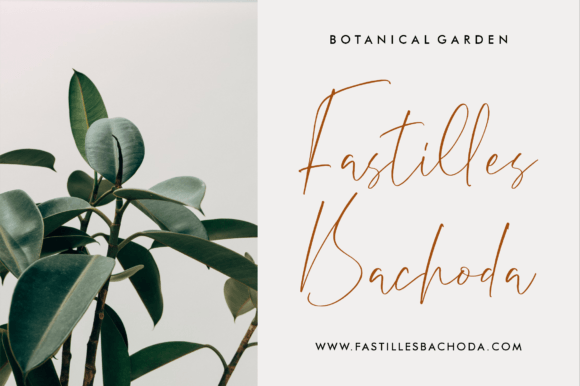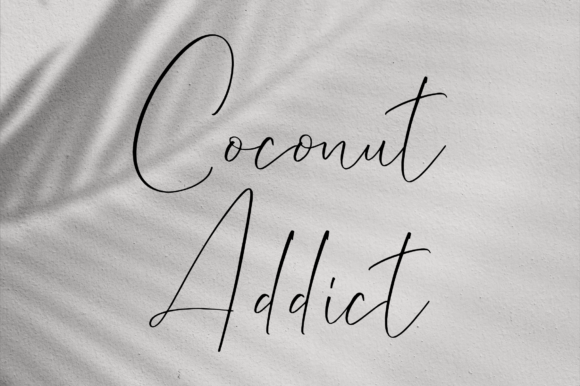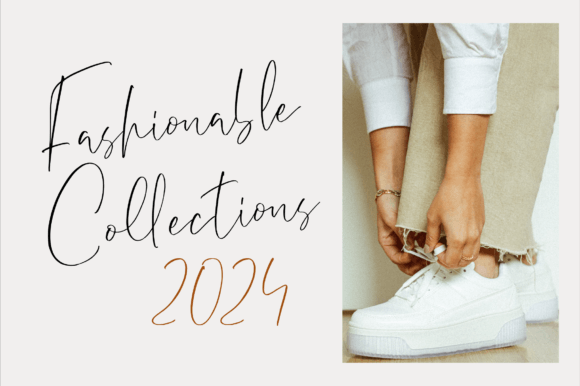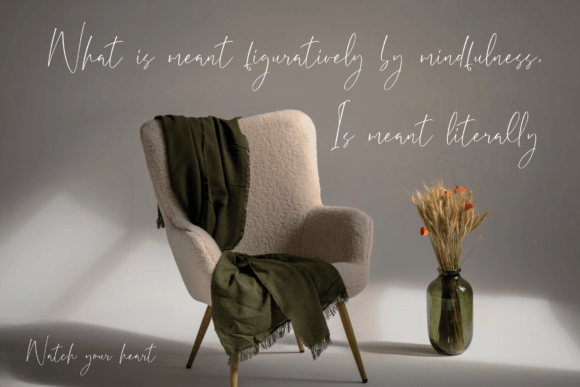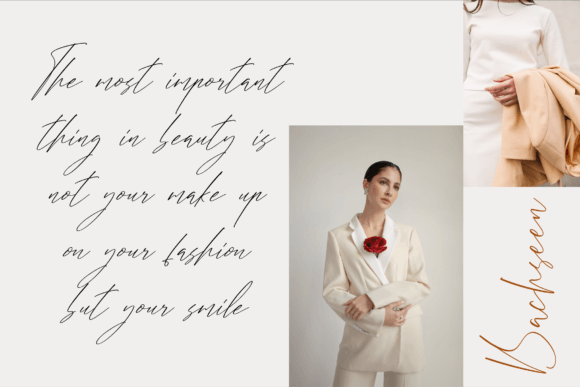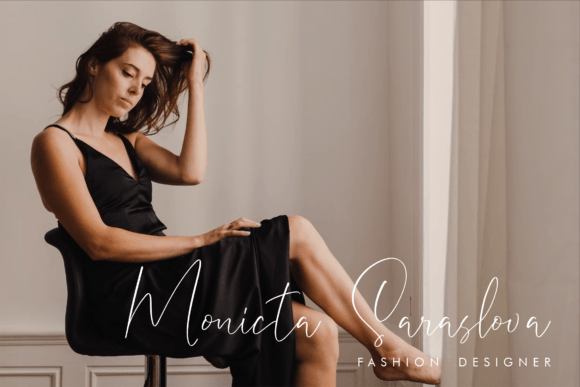
Introduction to Garbytta Mondela Font
Garbytta Mondela – Modern Handwritten, from Letterfabric Studio, suitable for any projects such as: logos, branding projects, homeware designs, product packaging, mugs, quotes, posters, shopping bags, t-shirts, book covers, name card, invitation cards, greeting cards, label, photography, watermark, special events, and all your other lovely projects that need a beautiful script taste.
Key Features of Garbytta Mondela Font
Why Choose Garbytta Mondela Font?
Garbytta Mondela Font offers exceptional quality and versatility, making it a valuable addition to your design toolkit. Whether you’re creating for personal projects or commercial use, Garbytta Mondela Font delivers professional results.